Brand Palette Collection 01
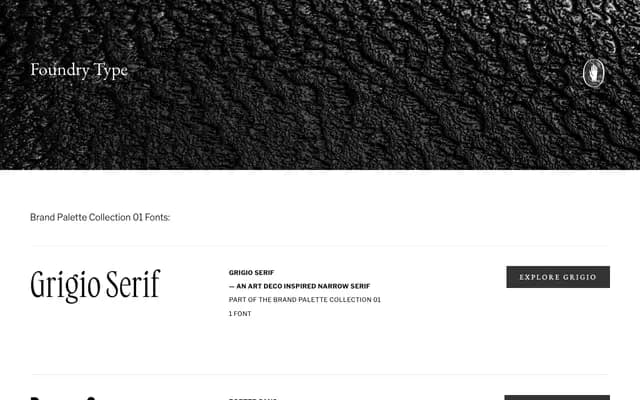
A curated set of four display typefaces from Badson Type, spanning art deco narrow serif, compressed sans, thin sans and a vintage flared all-caps.
The Brand Palette Collection 01 bundles four distinct display styles intended for brand work: Grigio Serif (an art deco inspired narrow serif), Porter Sans (a contemporary compressed sans), Ginny Sans (a slender thin sans) and Armond (a vintage all-caps flared sans with outline and solid styles). Each is offered as a single font, with the collection positioned as a coordinated toolkit for visual identity. The range covers narrow and compressed widths, making it suited to logotype and headline applications.
The page presents a mixed collection of display-oriented typefaces including art deco serifs, compressed sans, thin sans and flared all-caps styles, grouped under a single collection label rather than a single unified typeface.